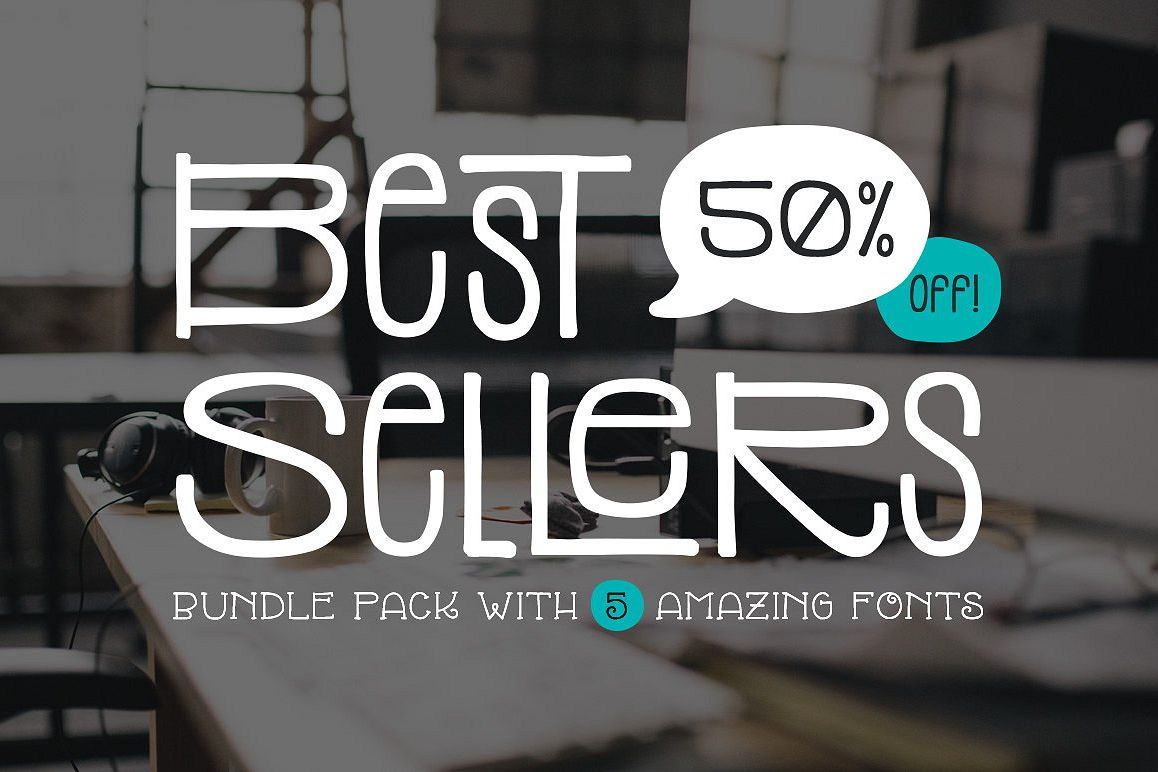
Top 5 Bestselling Fonts Bundle Pack
My top 5 best-selling fonts bundled together and 50% off! A collection of hand-drawn, super fun fonts! Mix and match the thick and thin fonts to create some great combinations.